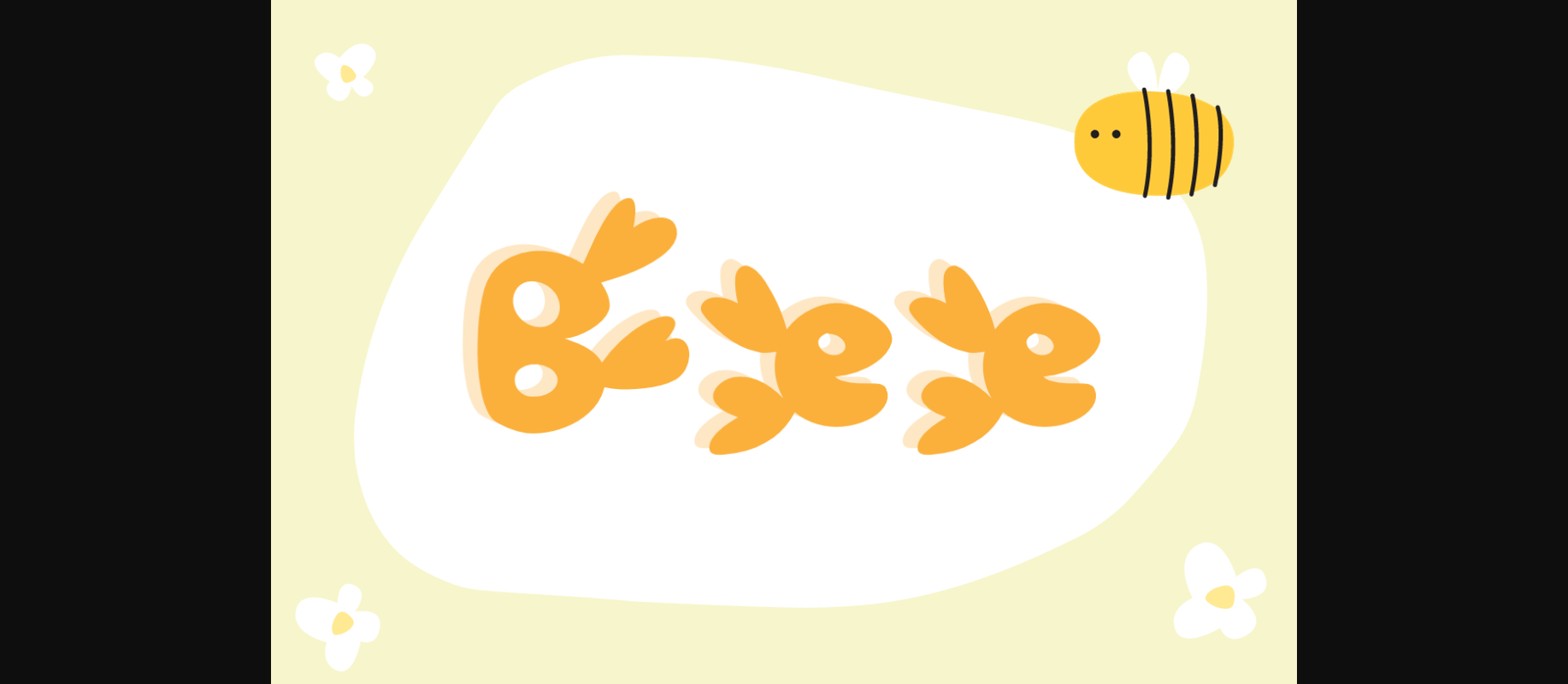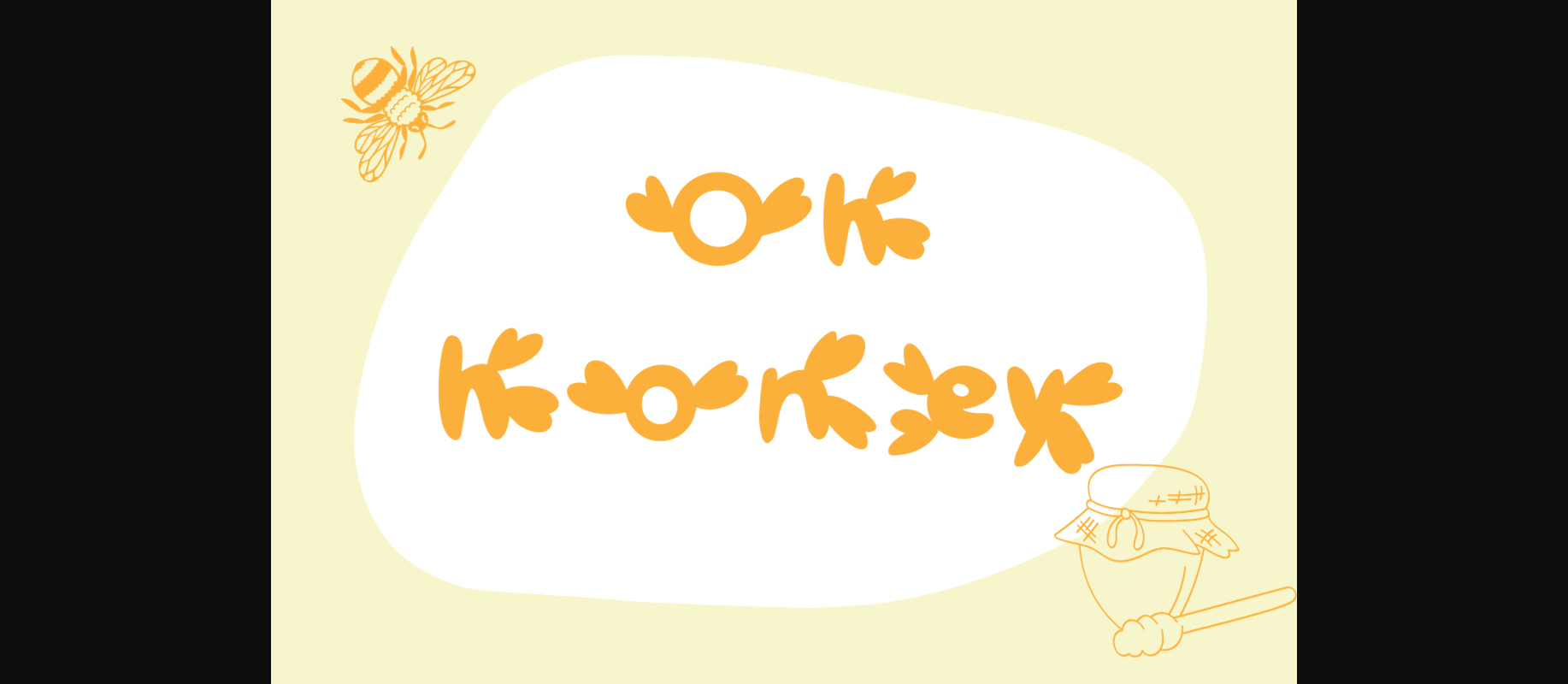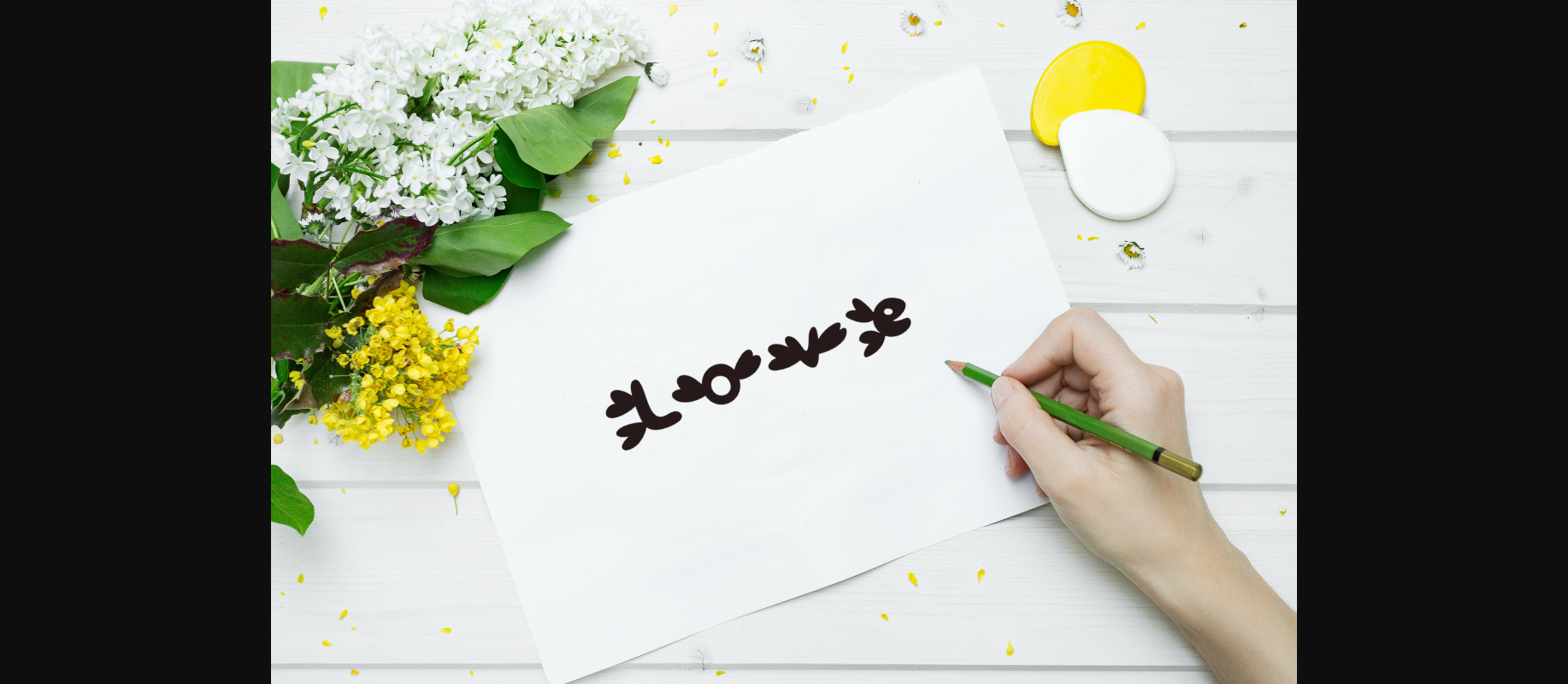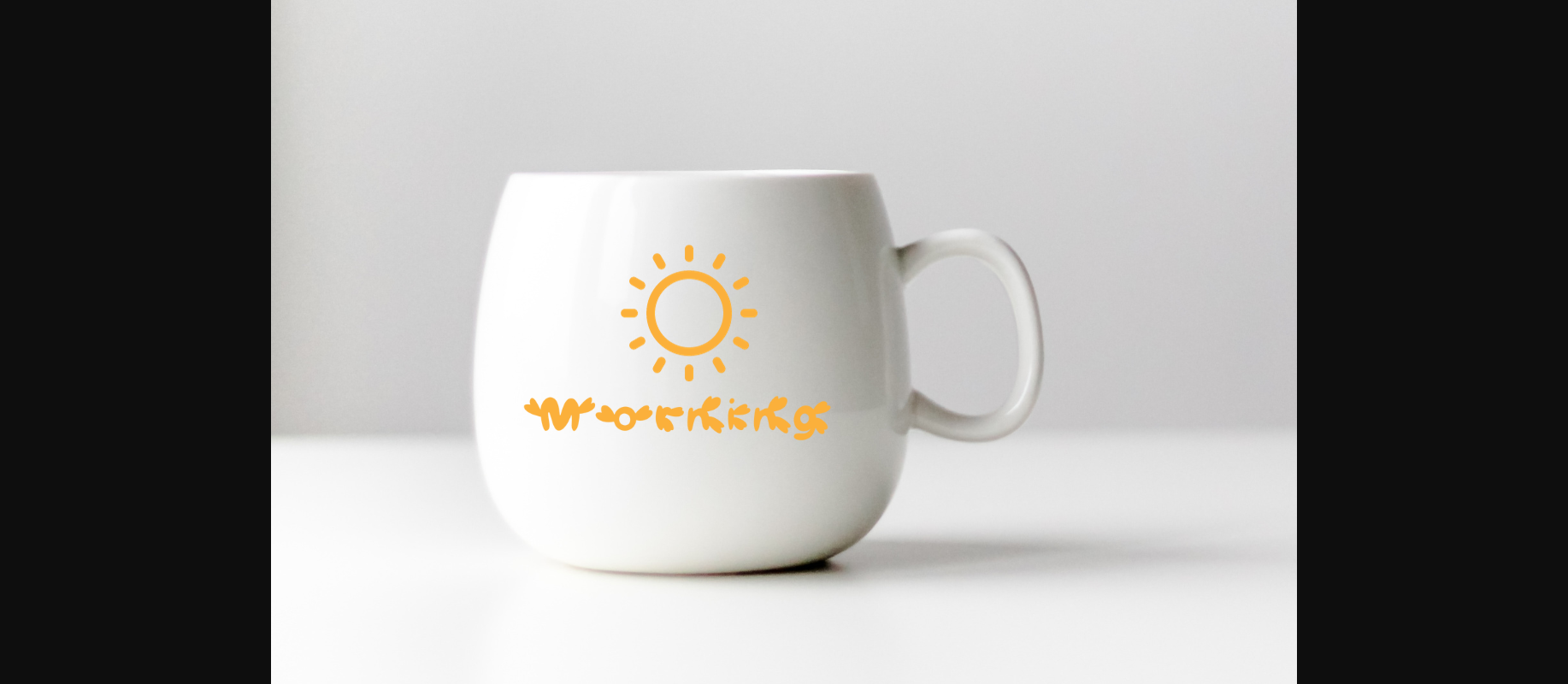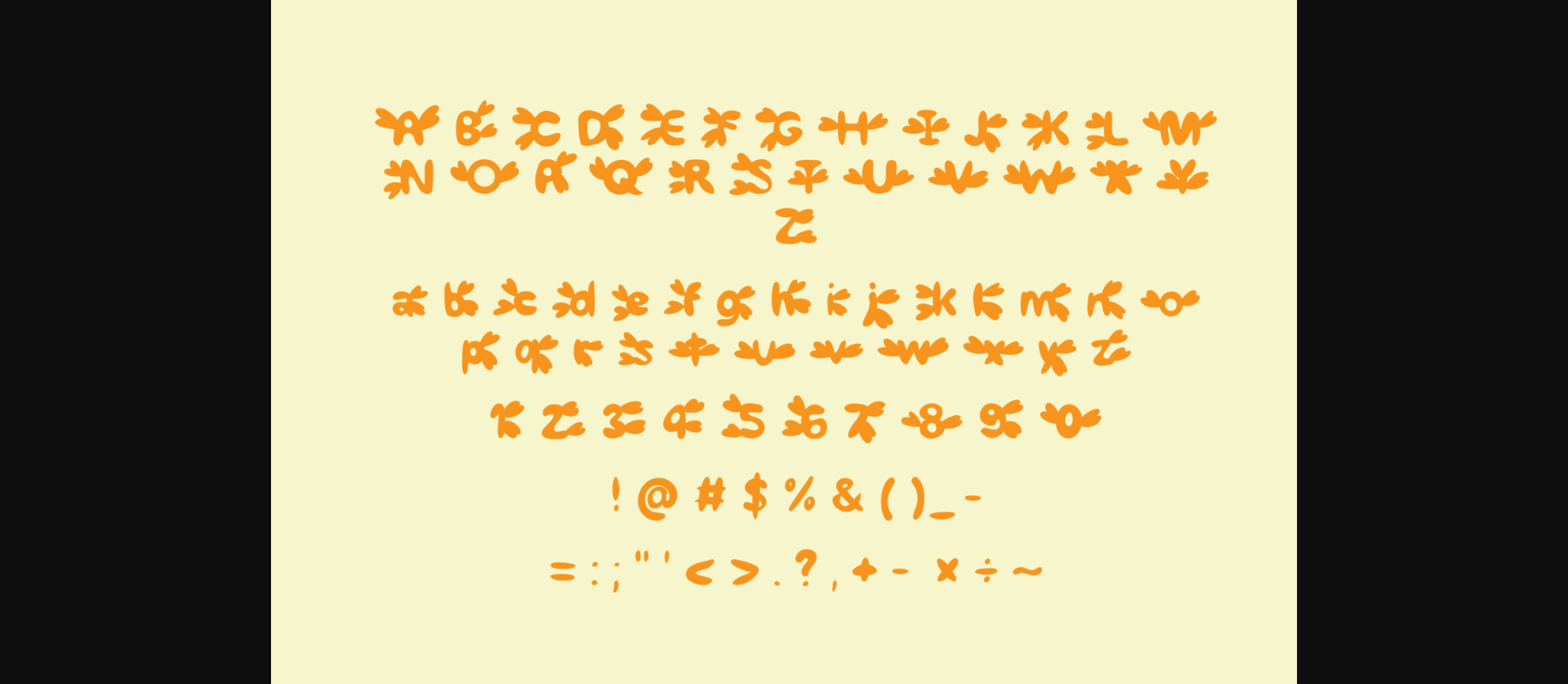
HomeDecorative FontsBee Font Decorative Fonts Bee Font FacebookXPinterestWhatsApp 1 of 9 ... Bee Font Poster 2... Bee Font Poster 3... Bee Font Poster 4... Bee Font Poster 5... Bee Font Poster 6... Bee Font Poster 7... Bee Font Poster 8... Bee Font Poster 9... About Bee Font Bee font is a font which have wing that is perfects project related to Bee, Honey, and Wings. Use it on your card, flyers, banners, book titles, social media and so much more! DOWNLOAD NOW People also explored Holly Bomford Font Suelita Font Vintage Photography Studio Scene Jasuka Font Thundersh Font Kitty Kiss Font Natalic Font Monogram Leaves and Stars Font Beautiful Font 303 0 TagsBeeBee Font Previous articleTacky FontNext articleGrunge Cobweb Font LEAVE A REPLY Cancel reply Comment: Please enter your comment! Name:* Please enter your name here Email:* You have entered an incorrect email address! Please enter your email address here Website: Save my name, email, and website in this browser for the next time I comment. Personal Use Free Valentine Chips Personal Use Free Read more about this font Glowing Personal Use Free Read more about this font Yesstea Personal Use Free Read more about this font BD Beans Personal Use Free Read more about this font BLOG Using Fonts in Digital Marketing: Tips to Strengthen Your Brand Identity In the realm of digital marketing, every visual element plays a crucial role in shaping a brand's identity, and fonts are no exception. The... Best Fonts for T-Shirt Design – Top 2025 Picks Transform Your Website: Elevate Your Typography with 7 Best Web Font Generators Top 7 Google Fonts Alternatives for Faster and Privacy-Friendly Web Design (2025)